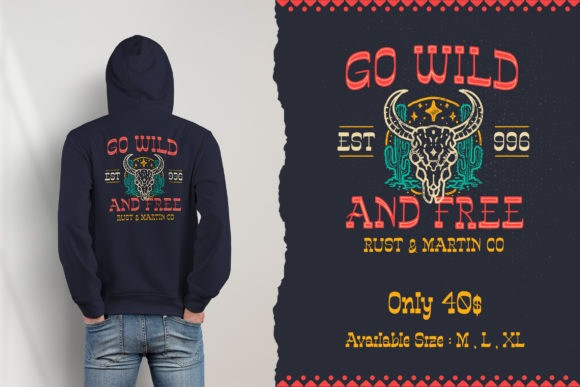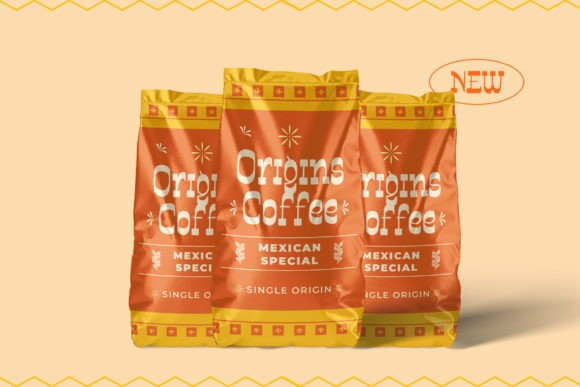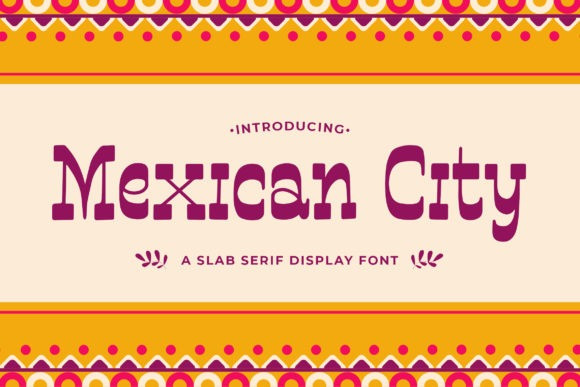
Mexican City Slab Serif Font
Mexican City is a cool and authentic slab serif font. Add this vintage styled font to your library and use it for any creation that requires a western look.